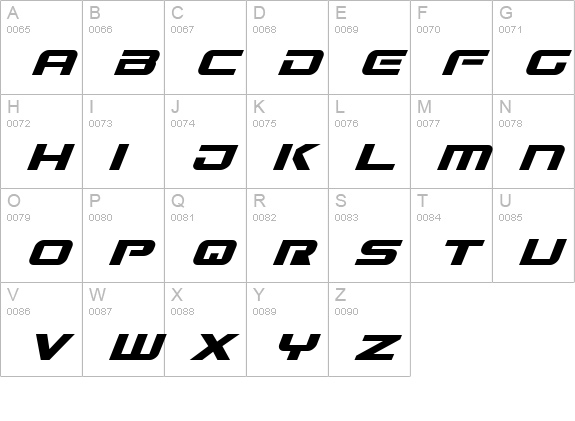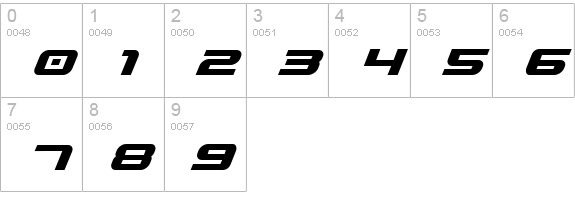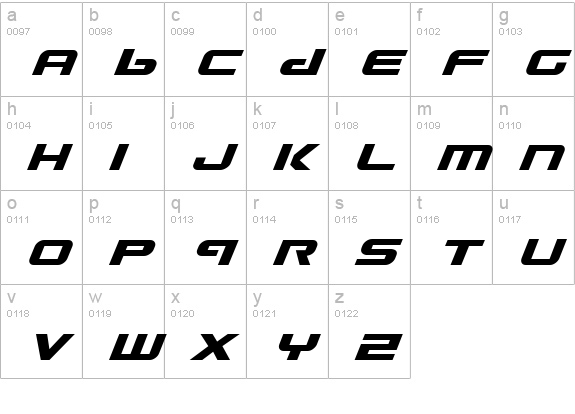
Gunship Italic is a distinctive, italic variant in the Gunship typeface family \xE2\x80\x94 well suited to design and typography projects.
Gunship Italic font is a sleek and modern typeface that exudes a sense of strength and sophistication. Its italicized design adds a touch of elegance to any project, making it perfect for titles, headers, and other eye-catching text. The clean lines and sharp angles of Gunship Italic make it a versatile choice for both digital and print media. Best of all, Gunship Italic font is available for free download at FontsMarket.com. With its bold and dynamic appearance, this font is sure to make a striking impression on your audience. Upgrade your design projects with Gunship Italic and watch as your text comes to life with style and flair.